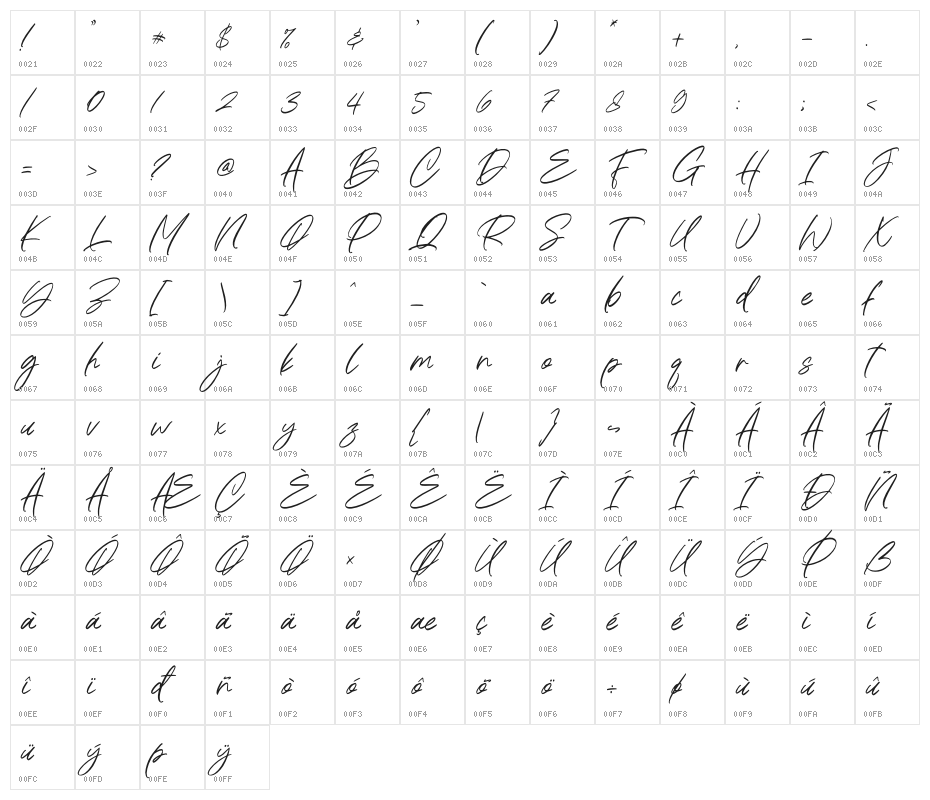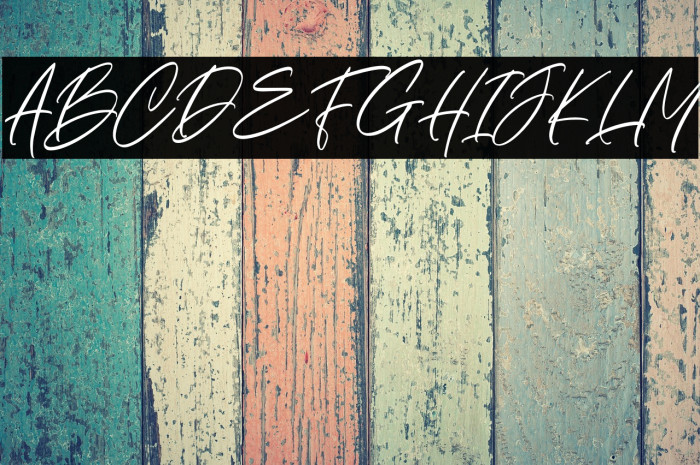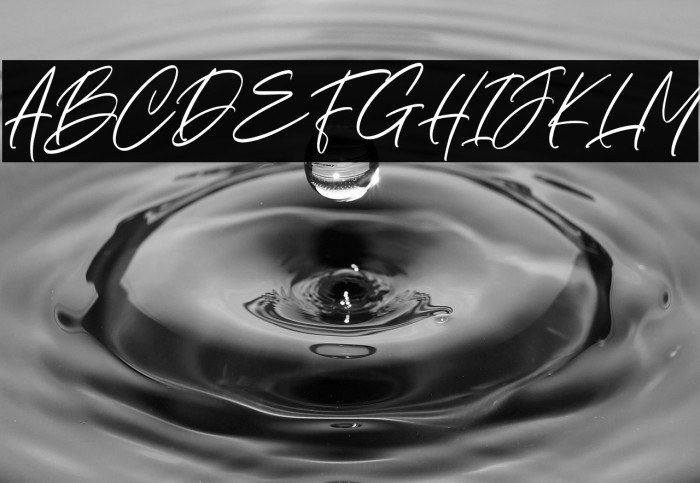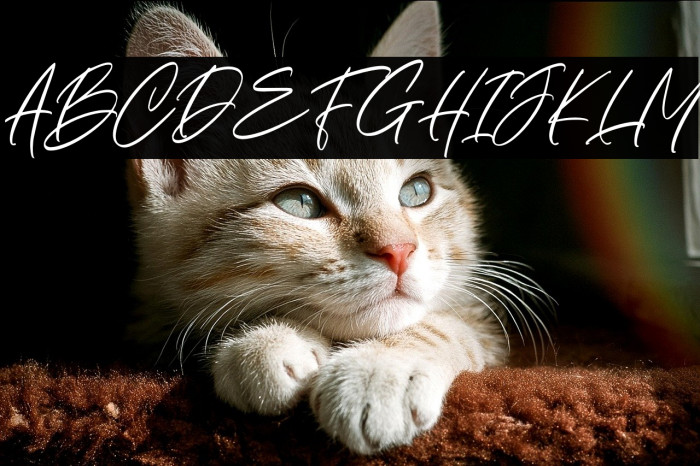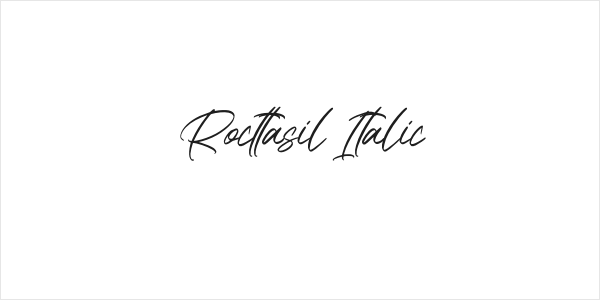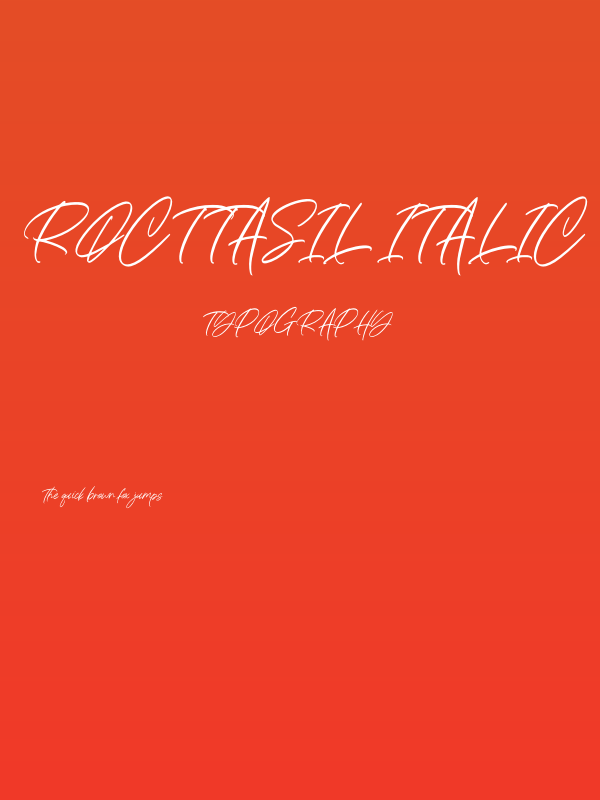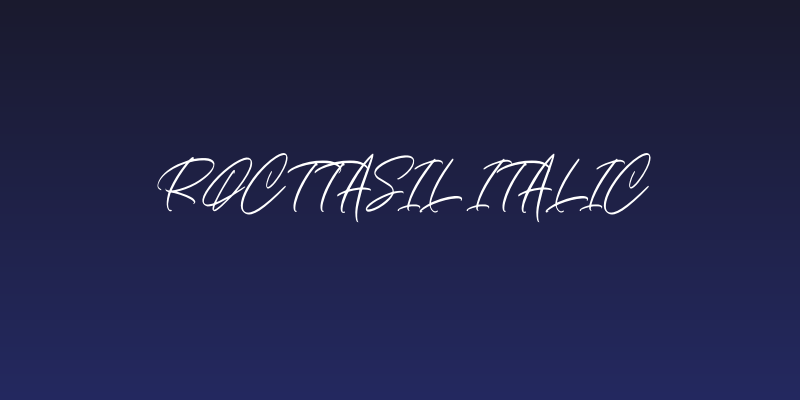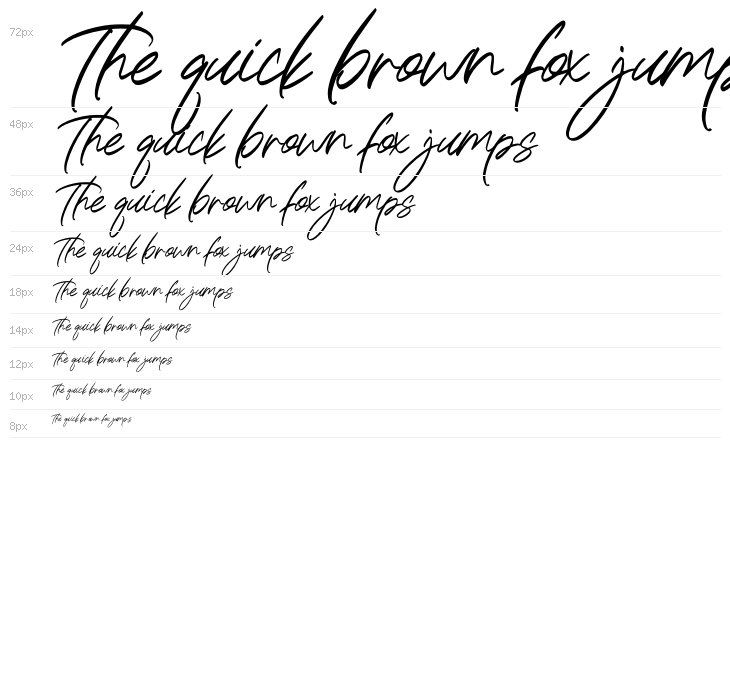
Rocttasil Italic Font
Rocttasil Italic Description
This font exudes a dynamic and fluid style, characterized by its cursive and handwritten appearance. The letters are elegantly slanted, giving it an italicized look that enhances its expressive nature. The strokes are smooth and continuous, with a natural flow that mimics the movement of a pen on paper. Each character is distinct yet harmoniously connected, creating a cohesive and visually appealing script. The uppercase letters are bold and prominent, while the lowercase letters maintain a graceful and consistent form. The numerals and special characters are crafted with the same attention to detail, ensuring uniformity across the entire typeface.